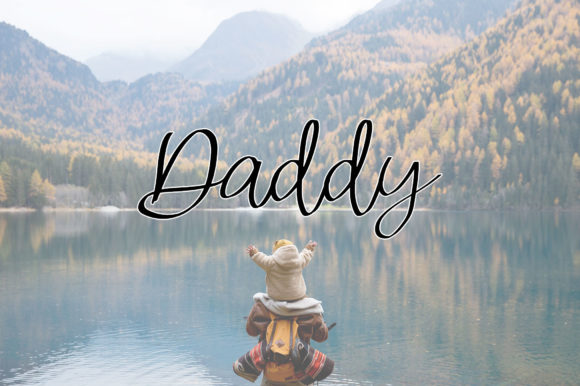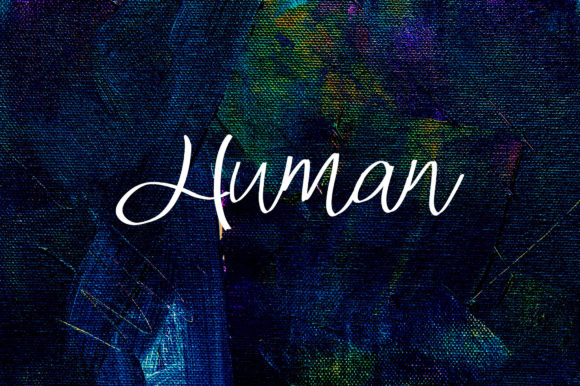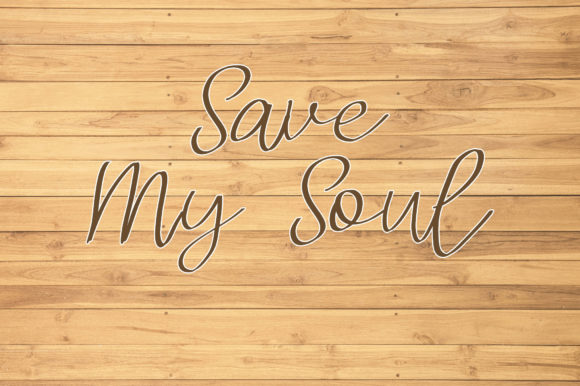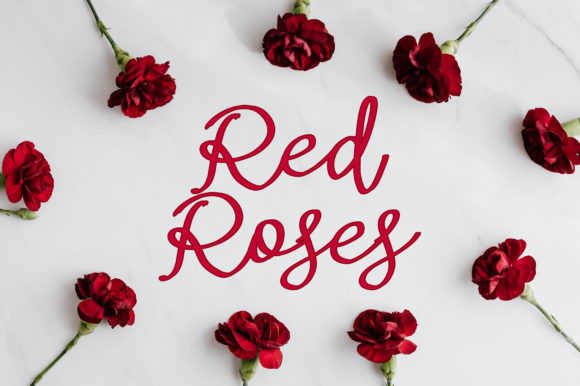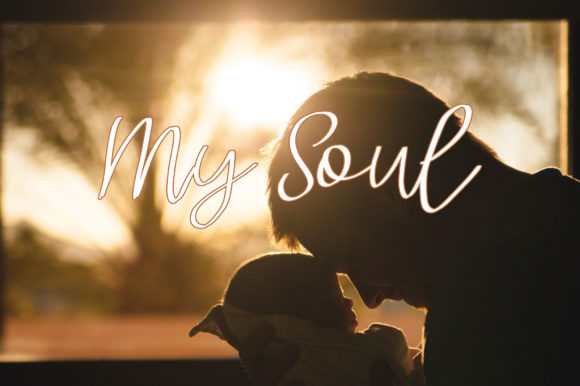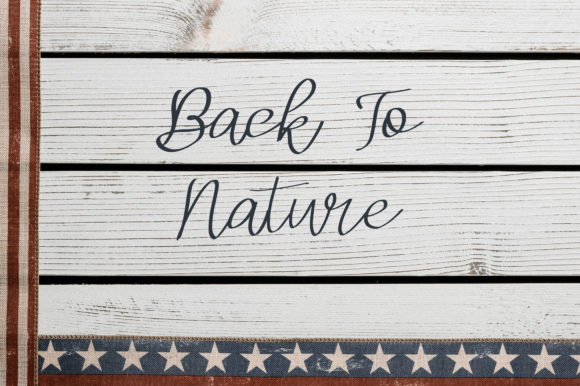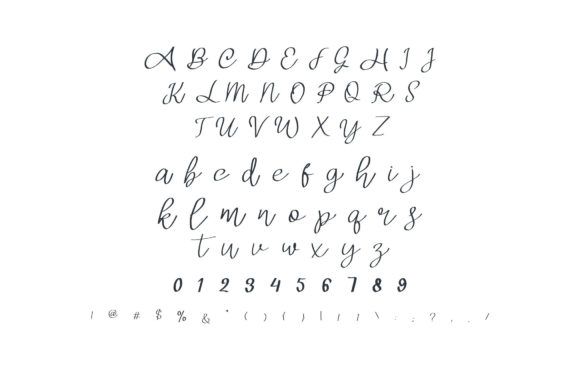
Daddy Font
About Daddy Font
Daddy is a sweet, whimsical and flowing script font. Fall for its splendid style and use it to create gorgeous wedding invitations, beautiful stationary art, eye-catching social media posts, and much more!